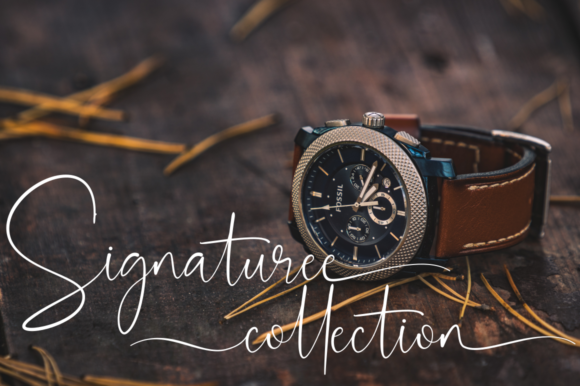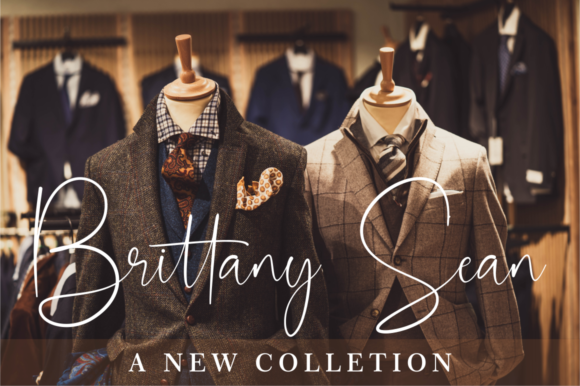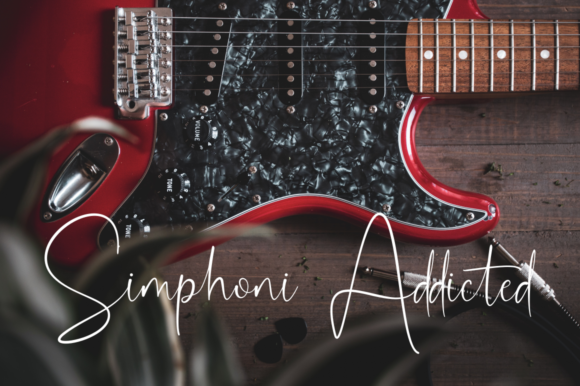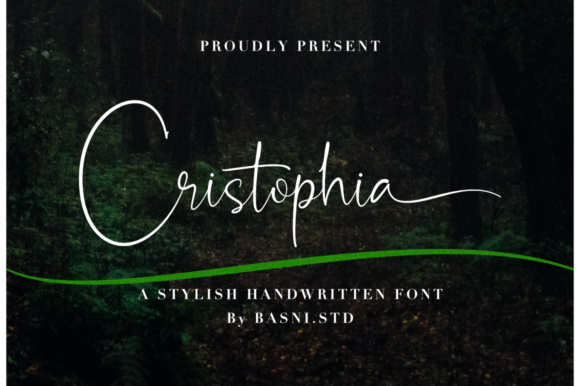
Cristophia Font: Elevate Your Designs with Elegance and Sophistication
In the world of typography, few fonts capture the essence of elegance and sophistication as beautifully as Cristophia. This stunning script font is designed to add a touch of luxury to any design project, making it perfect for crafters, designers, and anyone looking to create visually striking content. With its thin lettering and graceful strokes, Cristophia is sure to leave a lasting impression.
The Beauty of Cristophia
Cristophia is a masterclass in font design, boasting a unique blend of classic elegance and modern flair. Its thin lettering gives it a delicate, refined appearance, while its graceful script strokes add a touch of sophistication and poise. Whether you’re creating wedding invitations, social media posts, or stationery art, Cristophia is the perfect choice for adding a dash of glamour to your designs.
One of the most exciting aspects of Cristophia is its versatility. This font can be used in a wide range of design projects, from:
- Wedding invitations and ceremony programs
- Stationery art and greeting cards
- And much more!
Wherever you choose to use Cristophia, you can be sure that it will add a touch of elegance and sophistication to your designs.
One of the standout features of Cristophia is its PUA (Private Use Area) encoding. This means that you can access all glyphs and swashes with ease, giving you complete creative control over your designs. With PUA encoding, you can:
- Easily access and use glyphs and swashes
- Customize your designs with unique flourishes
- Add a personal touch to your projects
Why Choose Cristophia?
With so many fonts to choose from, why should you choose Cristophia? Here are just a few reasons why Cristophia stands out from the crowd:
- Unique and elegant design: Cristophia’s thin lettering and graceful script strokes make it a truly unique and elegant font.
- Versatile: Cristophia can be used in a wide range of design projects, from wedding invitations to social media posts.
- PUA encoded: Easily access all glyphs and swashes with PUA encoding.
Tips for Using Cristophia
To get the most out of Cristophia, here are a few tips to keep in mind:
- Experiment with different sizes and colors: Cristophia looks stunning in a range of sizes and colors, so don’t be afraid to experiment and find the perfect combination for your design.
- Pair with complementary fonts: Cristophia pairs beautifully with a range of fonts, so try pairing it with complementary fonts to add depth and interest to your designs.
- Use glyphs and swashes to add flair: With PUA encoding, you can easily access glyphs and swashes to add a personal touch to your designs.
In conclusion, Cristophia is a truly exceptional font that is sure to elevate your designs to new heights. With its elegant and sophisticated design, versatility, and PUA encoding, Cristophia is the perfect choice for crafters, designers, and anyone looking to create stunning content. So why wait? Fall in love with Cristophia today and discover a world of creative possibilities!